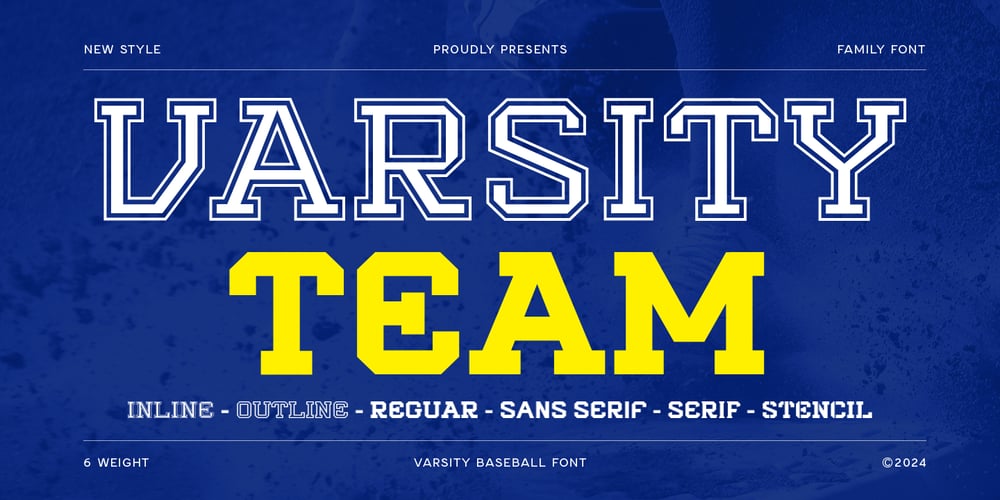
Varsity Team Font Family was designed by Zamroni Hamzah and published by Sensatype Studio. Varsity Team contains 6 styles and family package options. Varsity Team, an Unique Baseball Varsity Font Family that we created special for Professional and Modern Varsity Baseball needs that will give you more Unique look and more efficient in area, with 6 Styles in unique shape will be ready to add value of your design. It so nice to leverage designer or product owner that need solutions to make their design look more Professional and modern. And specially for this font, We prepared 6 Styles to help you create unlimited variations for your creative needs.Varsity Team Baseball Varsity Font Family ready with: 6 Styles inside 4 format already for each weight Preview as a inspirations that you can do with Varsity Team Baseball Varsity Font Family Ready with Lowercase and Uppercase characters Wish you enjoy our font. 🙂